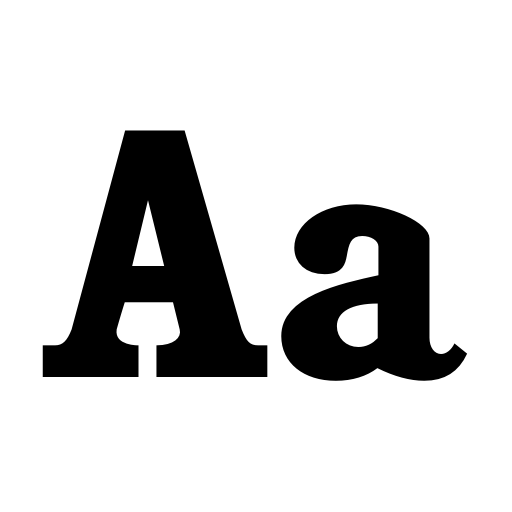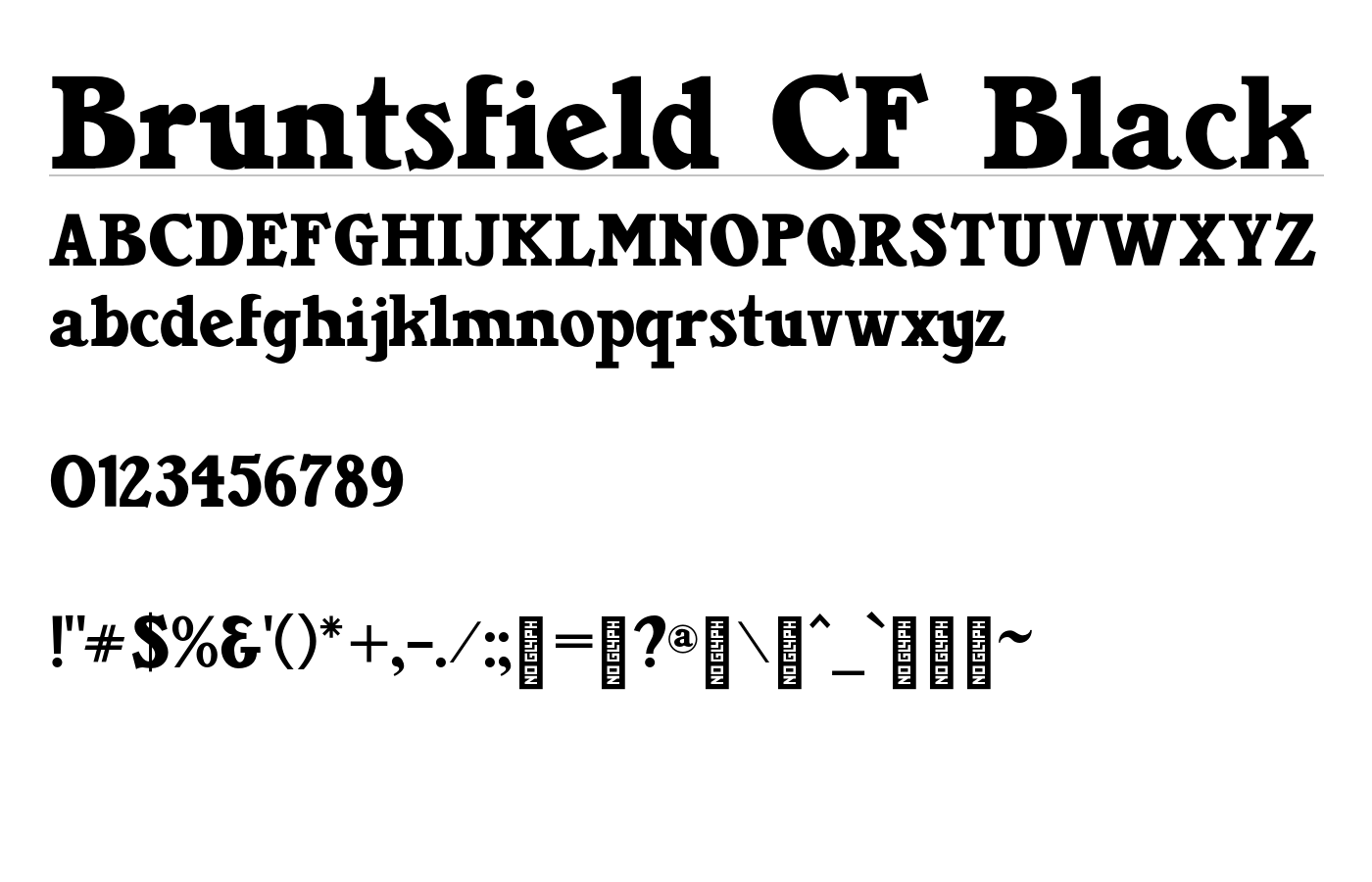
Bruntsfield CF Black is a bold slab serif font with strong, heavy strokes and bracketed serifs that give it a robust yet classic presence. Its medium x-height and sturdy letterforms offer excellent readability and a vintage, authoritative feel, making it ideal for headlines, branding, and editorial design where a confident and traditional style is desired.
Bruntsfield CF Black Font
About Bruntsfield CF Black Font
| Font family | Bruntsfield CF Black Font |
| Designer | Chuck Mountain |